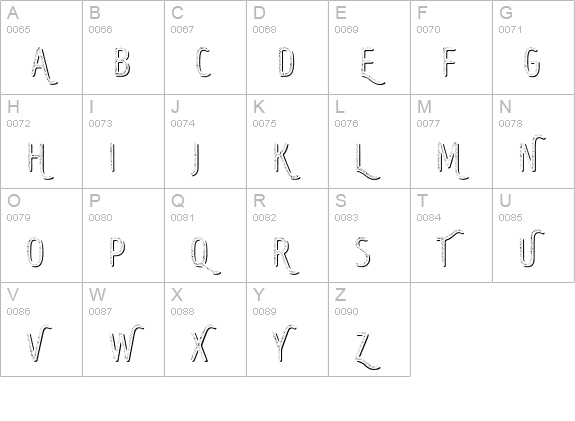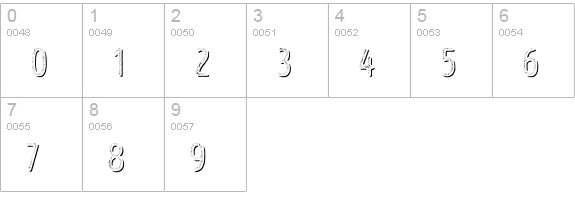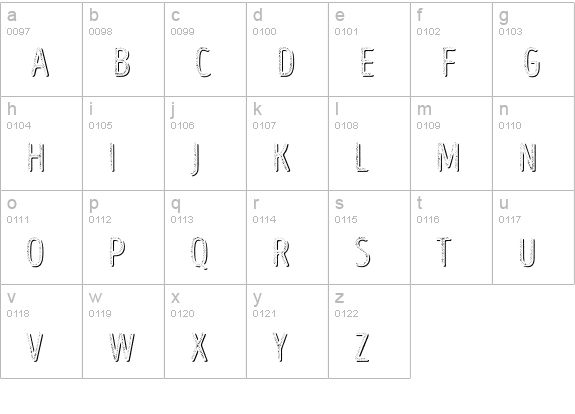
Intro Head R UC H2 Shade Font Details
The Intro Head R UC H2 Shade font is a bold and eye-catching typeface that exudes modernity and sophistication. With its unique design and striking uppercase characters, this font is perfect for creating impactful headlines, titles, and branding materials. The sleek shading adds depth and dimension to your text, making it stand out on any project. Best of all, the Intro Head R UC H2 Shade font is available for free download at FontsMarket.com. Whether you're working on a poster design, website, or any other creative project, this font will elevate your work to the next level. Add a touch of elegance and style to your designs with this stunning typeface today.